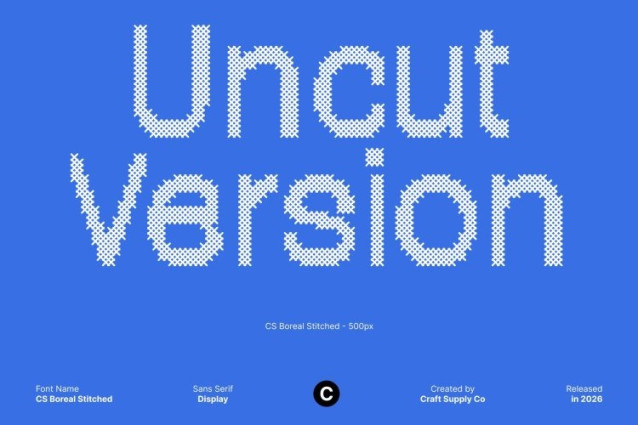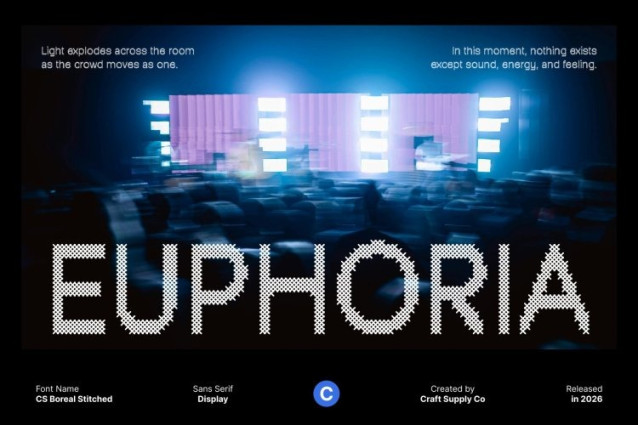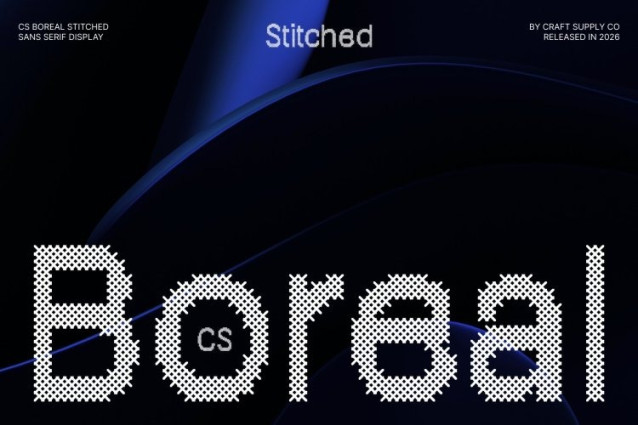
CS Boreal Stitched Font
CS Boreal Stitched Font – This is a modern sans serif font that blends clean construction with quirky, distinctive shapes. Designed to feel fresh and contemporary, it offers a clear and polished look while maintaining a unique visual personality. Enhanced with a stitched style inspired by thread sewn or embroidered on fabric, this version introduces a handcrafted texture that adds warmth and character to its modern structure.
Quirky Details with Embossed Stitch Pattern
Built on a clean and balanced foundation, this font features subtle playful quirks that add visual interest without compromising clarity. A distinctive cross-shaped stitch pattern overlays each character, creating an embossed, fabric-like texture that enriches the design with depth and tactile appeal. This stitched detailing brings a classic, nostalgic, relaxed, and warm impression while preserving the font’s modern simplicity.
Fresh, Modern, and Approachable Style
This font delivers a contemporary aesthetic that feels confident yet friendly. The combination of clean sans-serif structure, expressive details, and stitched texture creates a typeface that feels innovative, creative, and approachable—perfect for designs that want to communicate clarity with personality.
Ideal for Branding and Digital Design
Perfect for branding, logos, posters, packaging, and digital interfaces, performs beautifully in both headlines and supporting text. Whether used in print or on screen, its fusion of modern typography and handcrafted stitched detail brings a stylish, expressive, and professionally refined presence to any design.